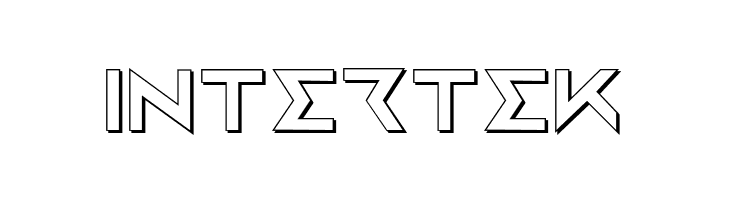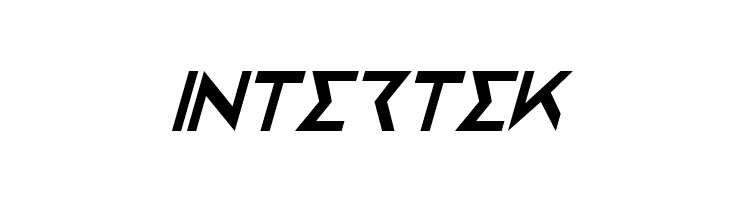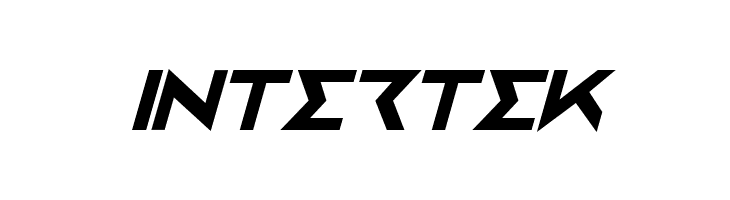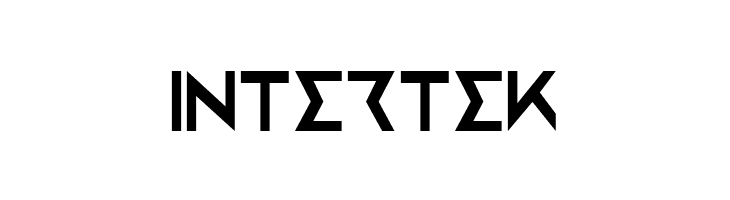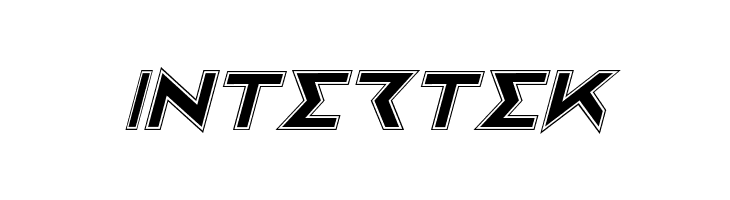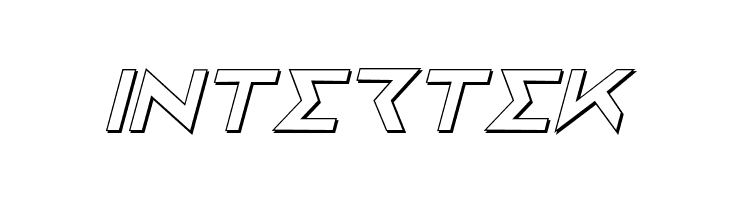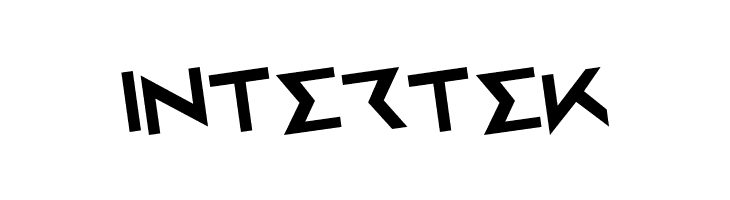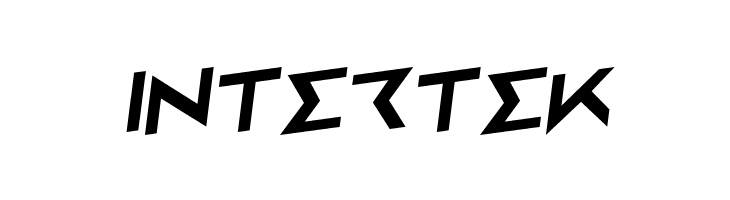
Iapetus Regular Font
- Font: Iapetus Regular
A bold, geometric font with a futuristic and industrial design.
A bold, geometric, and futuristic font with condensed and italicized characters.
A bold, italicized font with a futuristic, angular design and decorative elements.
A bold, futuristic font with sharp angles and geometric shapes, featuring an italic style.
A bold, geometric 3D italic font with angular lines and a futuristic style.
A bold, angular font with a futuristic and geometric style.
A bold, angular font with a futuristic and edgy design.